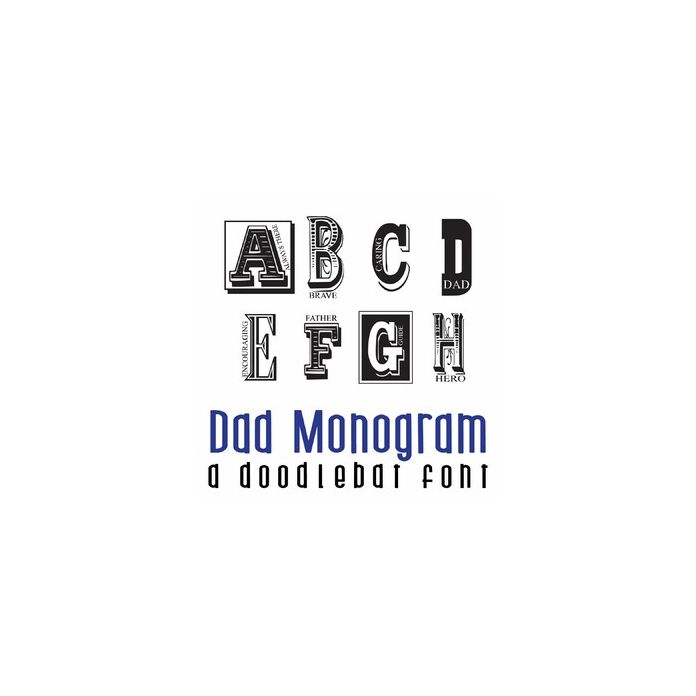
Dad Monogram Doodlebat Font
This fun doodlebat font features 26 dad themed monograms. Perfect for cards, gifts, decor, crafts, scrap book pages, planner stickers and more!